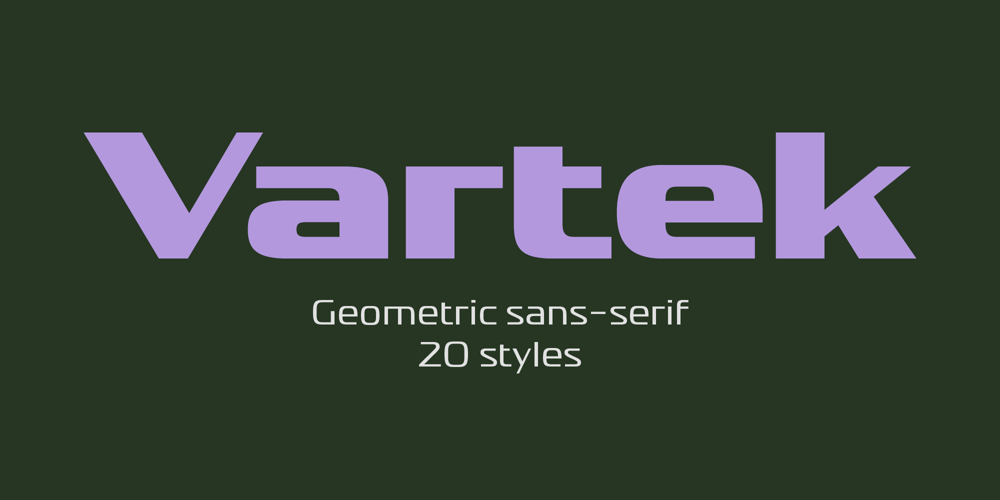
Vartek
Vartek font
Vartek Font Family was designed by Mariya Lish and published by Inhouse Type. Vartek contains 20 styles and family package options. Vartek is a geometric sans-serif type family. Inspired by the “space-age” and functionalist aesthetics, Vartek is a high-contrast utilitarian design. It comes in a variety of weight and width options. Opentype features include inferiors, superiors, fractions and ligatures.